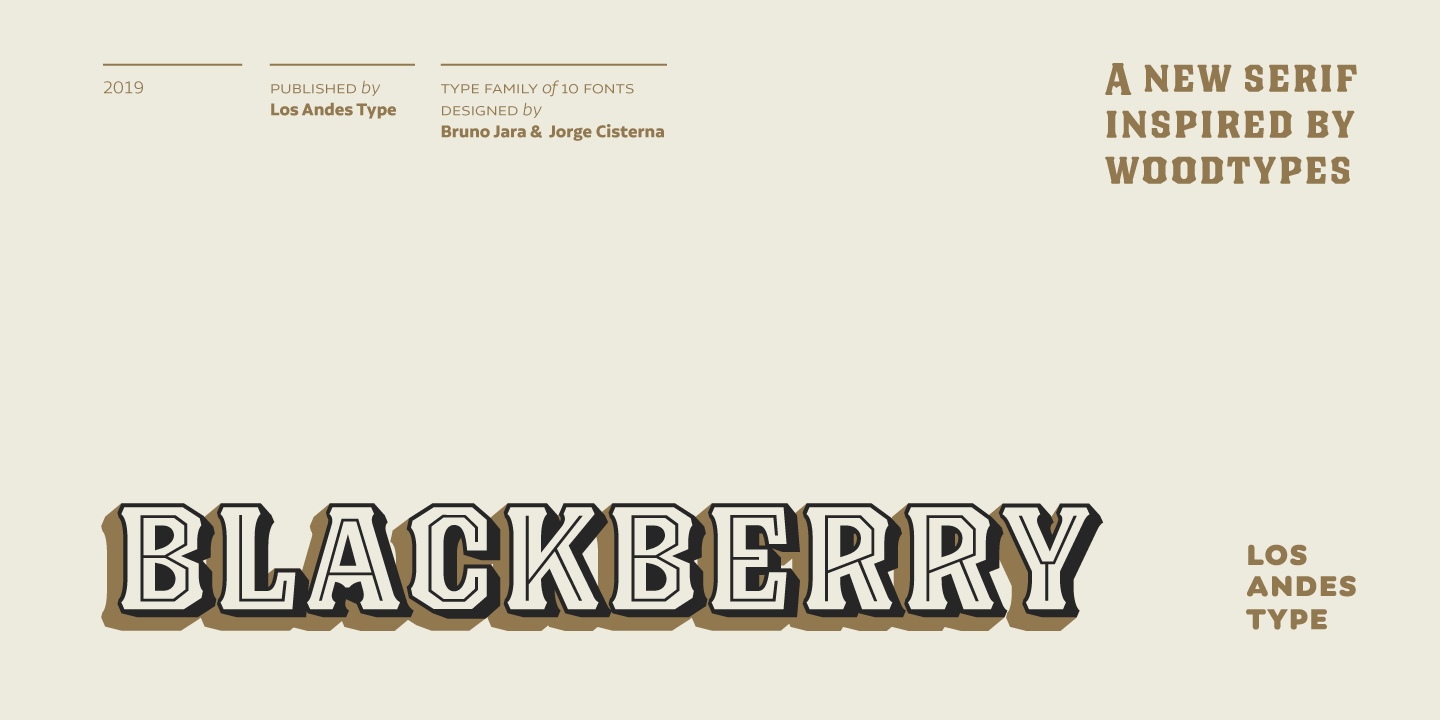
Blackberry Font
Blackberry Font is perfect for organic food packaging, berry farm branding, natural health products, artisanal jam labels, farmers market signage, eco-friendly campaigns, organic restaurant menus, natural cosmetics, seasonal harvest festivals, and authentic farm-to-table communications.
What makes Blackberry Font exciting is its natural sweetness that captures the wholesome essence of organic berries and farm-fresh authenticity through naturally crafted letterforms. This organic typeface combines rustic charm with contemporary functionality, creating a personality that communicates freshness, natural quality, and genuine agricultural heritage. The font's berry-inspired character and organic appeal make it perfect for food brands, agricultural businesses, and natural product companies seeking to evoke the delicious taste of fresh berries and authentic farm experiences.
The Blackberry Font family includes Regular, Bold, Light, Medium, Organic, Natural, Condensed, and Fresh variants. Each weight maintains the font's natural character while providing comprehensive typographic flexibility for organic brand identity systems and farm-fresh design applications across diverse agricultural platforms.
Taste natural sweetness with this exceptional organic typeface that defines farm-fresh quality through naturally crafted letterforms. Blackberry Font Free Download provides organic brands with access to premium natural typography that communicates freshness, quality, and authentic agricultural heritage across all farm projects and organic communications.
Whether you're developing organic food identities, creating farm marketing materials, designing natural product packaging, or building seasonal harvest campaigns, Blackberry Font delivers unmatched natural appeal and organic sophistication. Its fresh presence makes it perfect for berry farms, organic food producers, natural health brands, and sustainable agriculture companies seeking authentic farm representation.
The font's organic proportions and natural details create a wholesome reading experience that celebrates the bounty of nature and seasonal harvests. Each letterform has been carefully crafted to evoke summer berry picking and farm-fresh quality while maintaining excellent readability across modern organic applications.
This versatile typeface excels in agricultural environments, offering designers the authenticity needed for comprehensive organic brand communication strategies. The extensive character set includes natural alternates, organic ligatures, and farm symbols for agricultural market positioning and natural brand storytelling.
Harvest your natural projects with Blackberry Font Free Download and experience how organic typography can enhance agricultural credibility and farm-fresh appeal. This remarkable typeface captures the essence of berry sweetness while providing the versatility required for modern organic brand communication.
Embrace the power of natural design that celebrates agricultural heritage and authentic farm-to-table experiences.